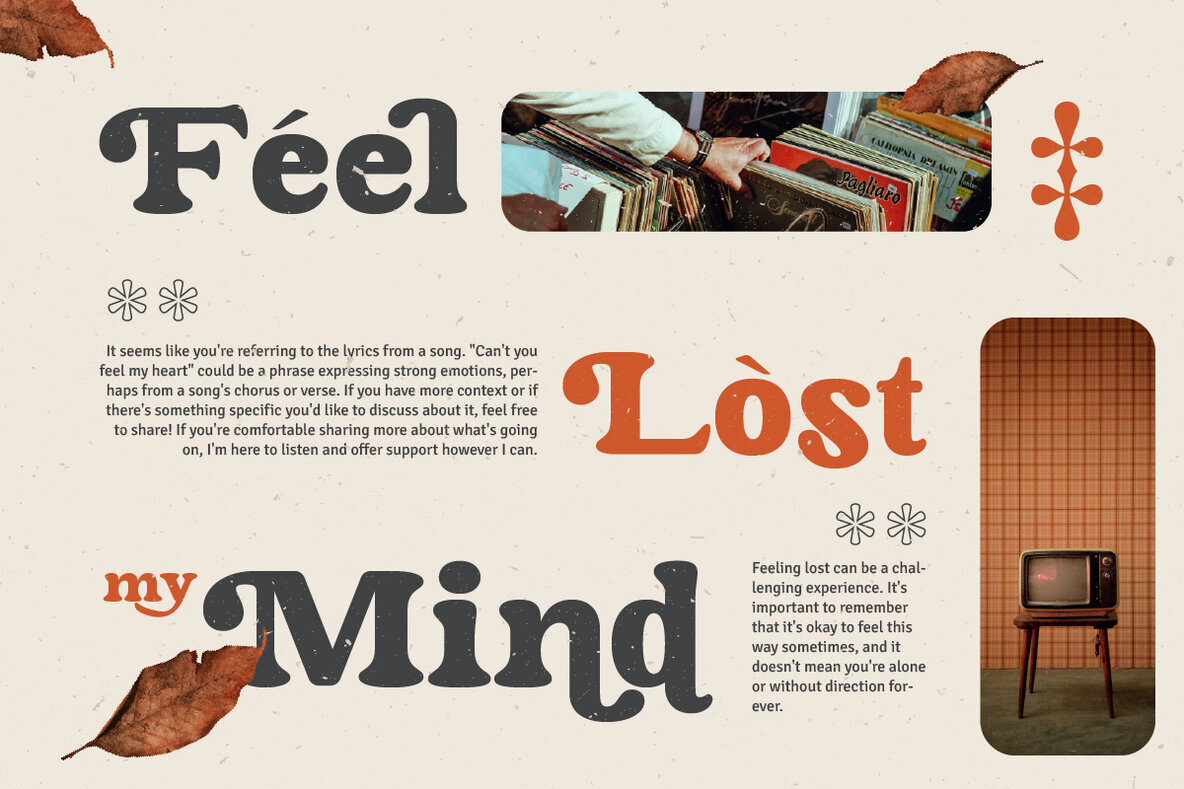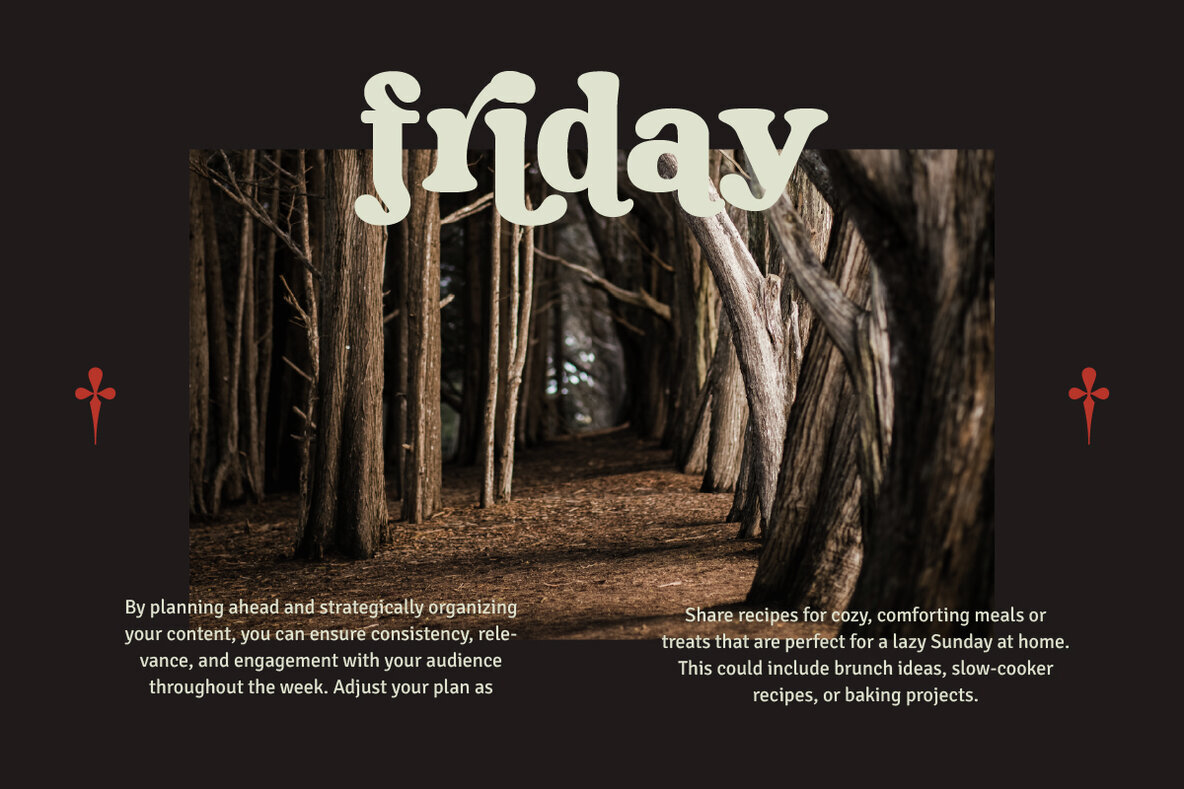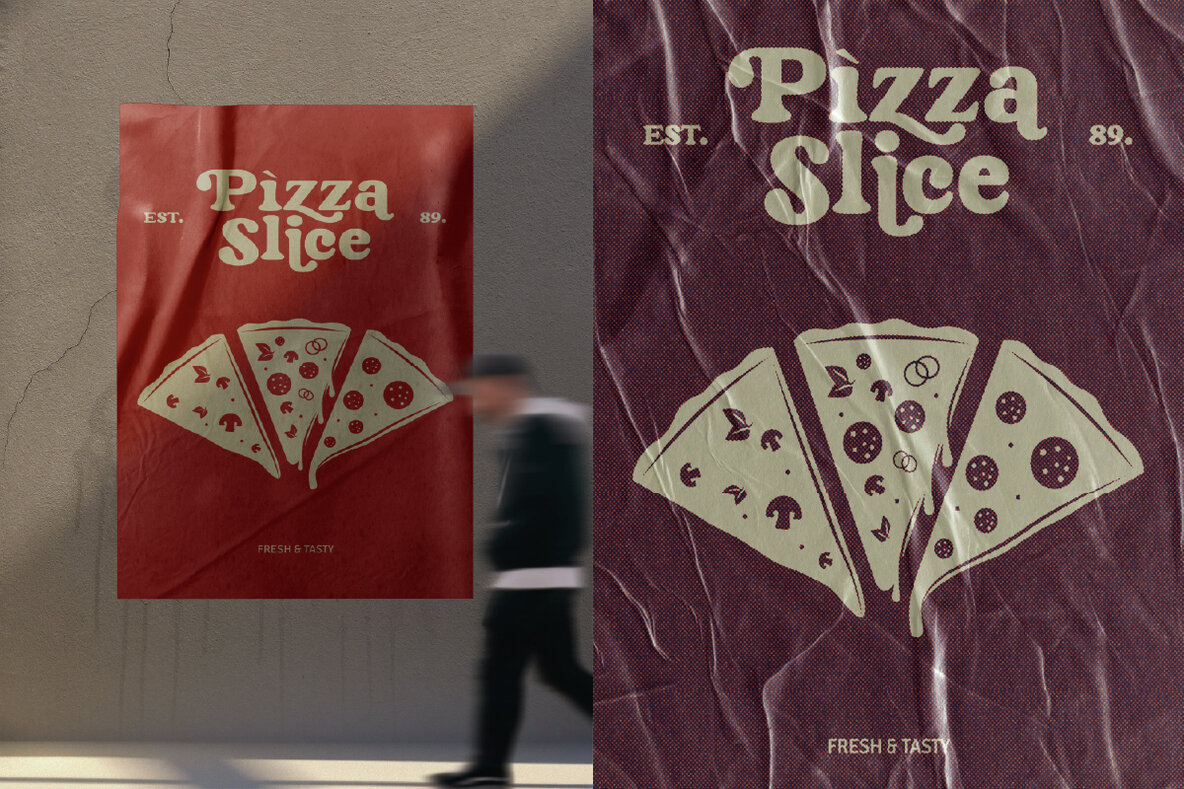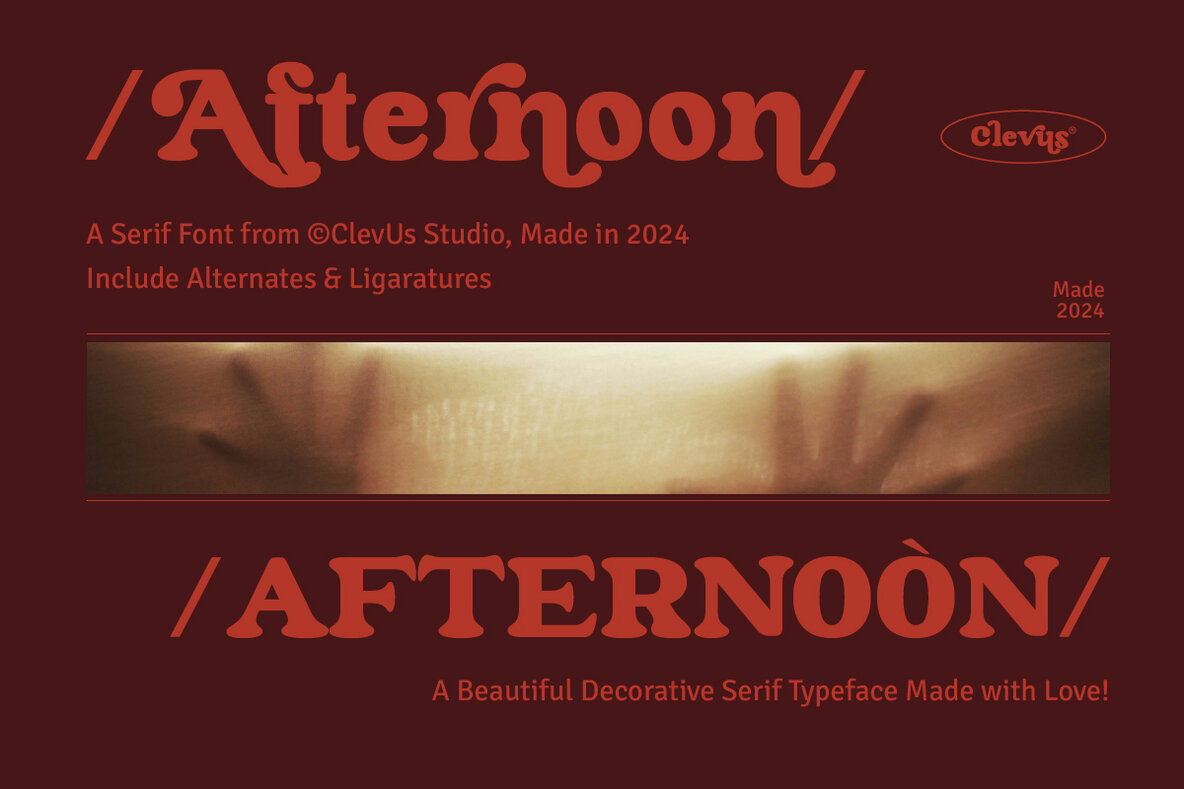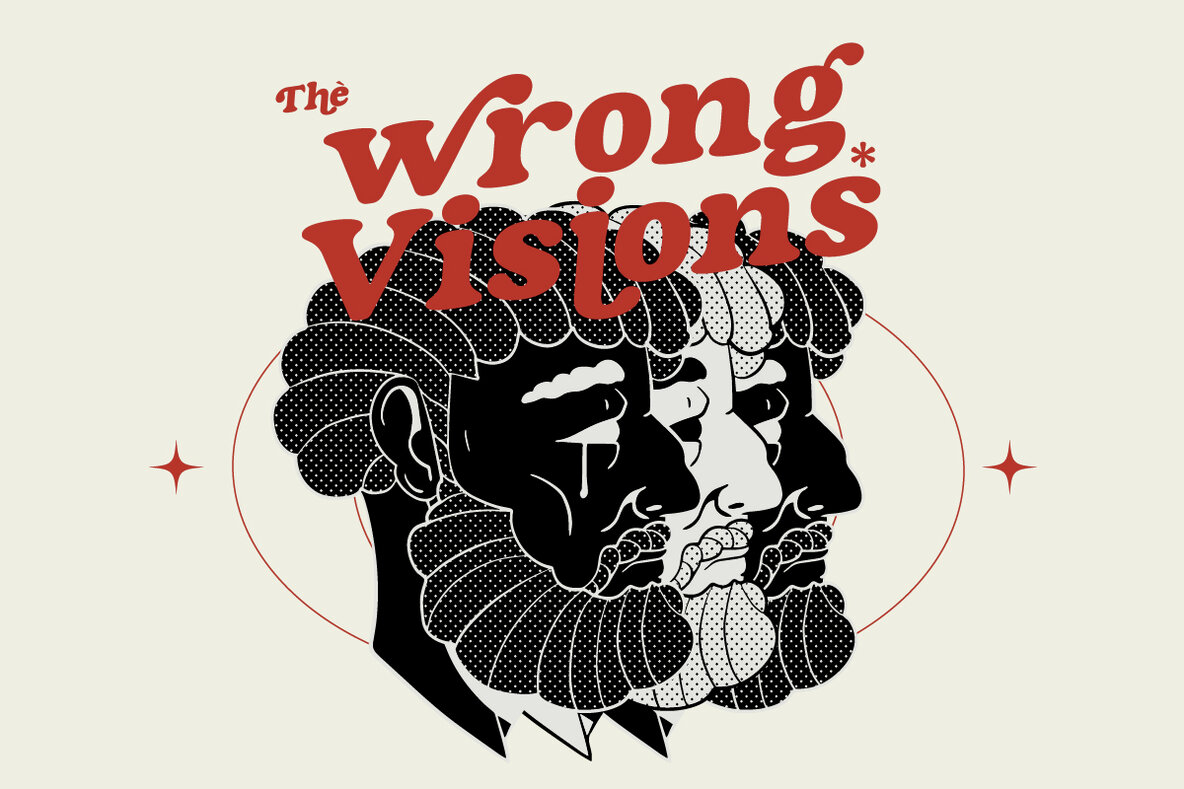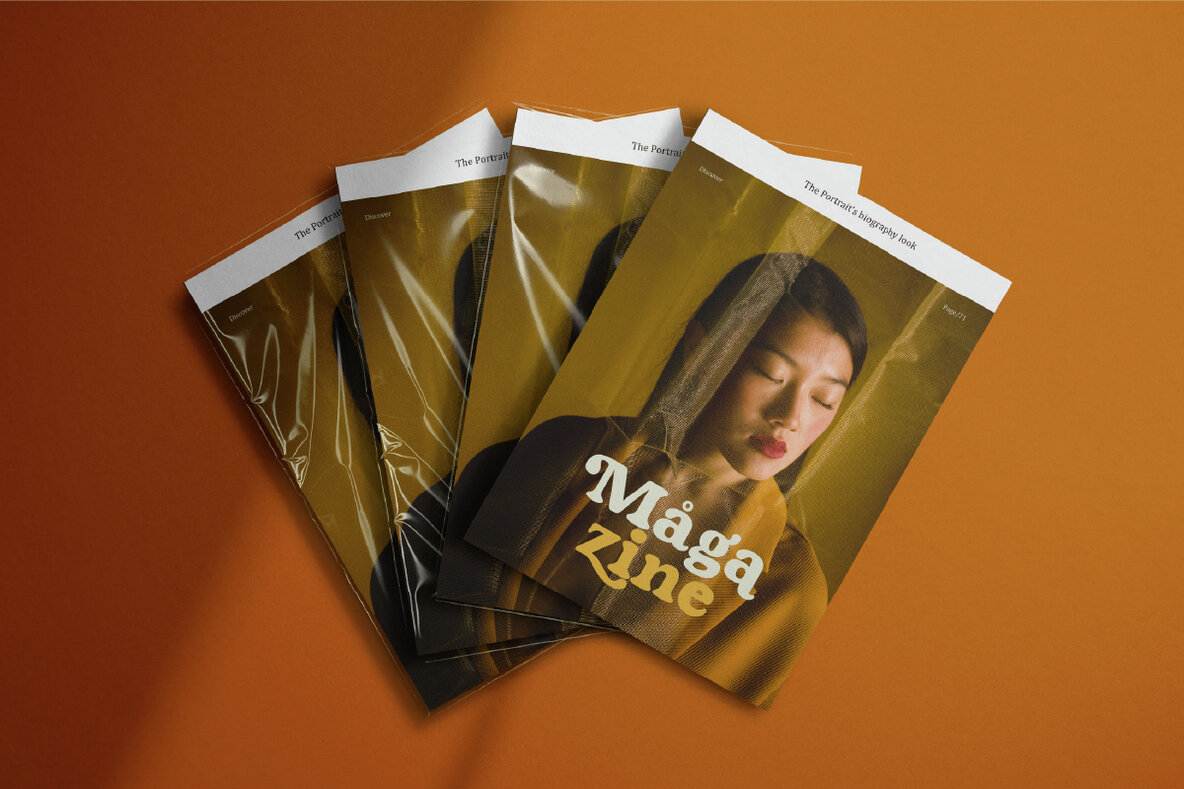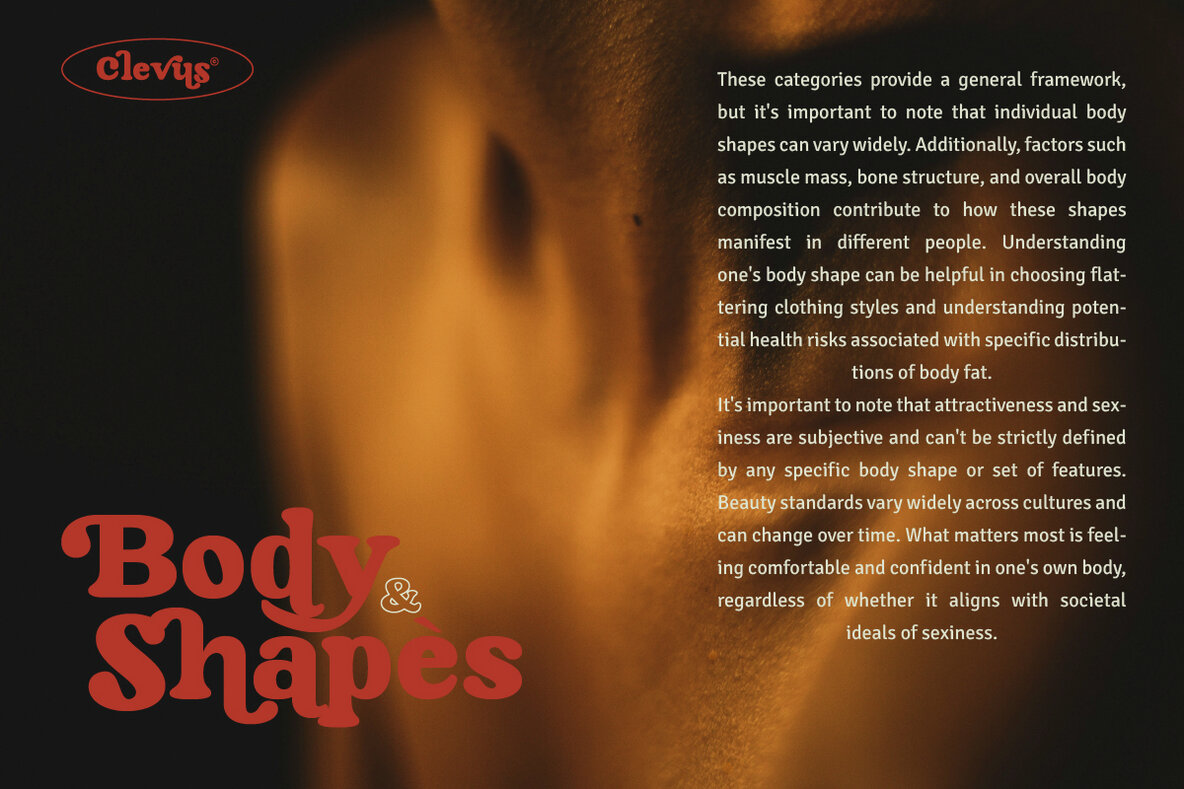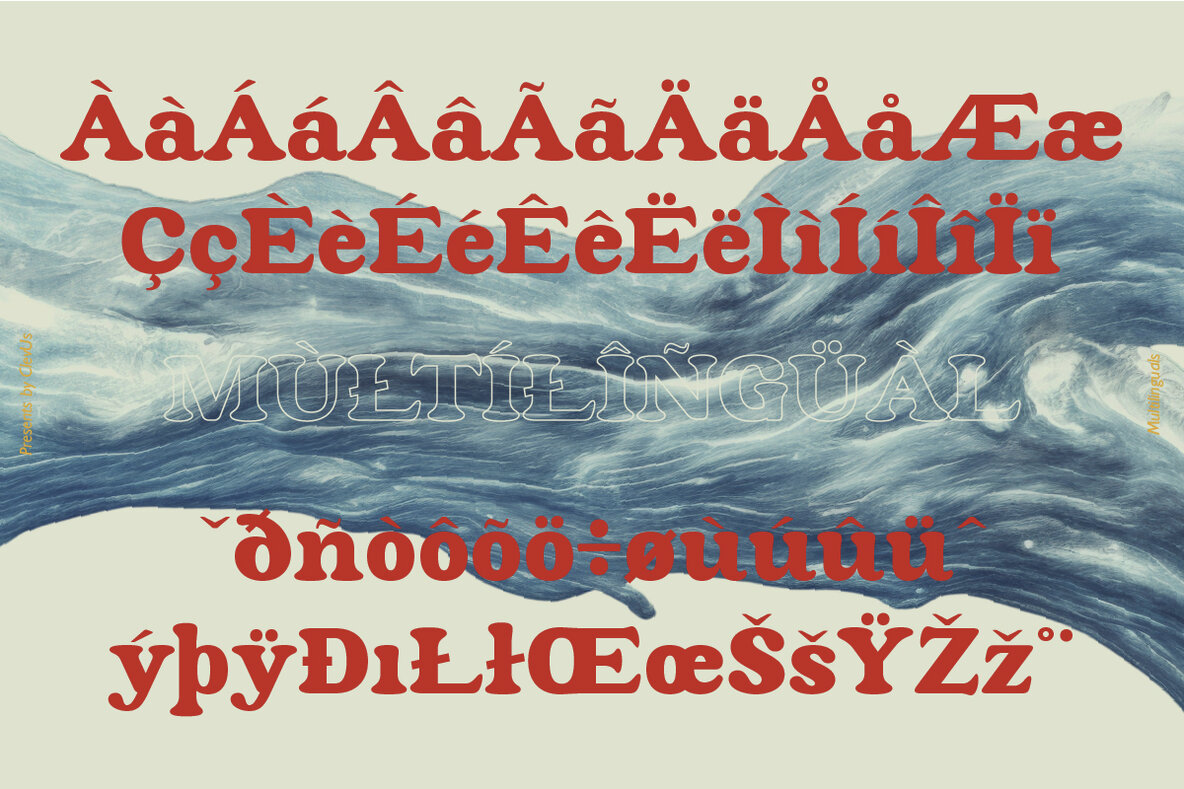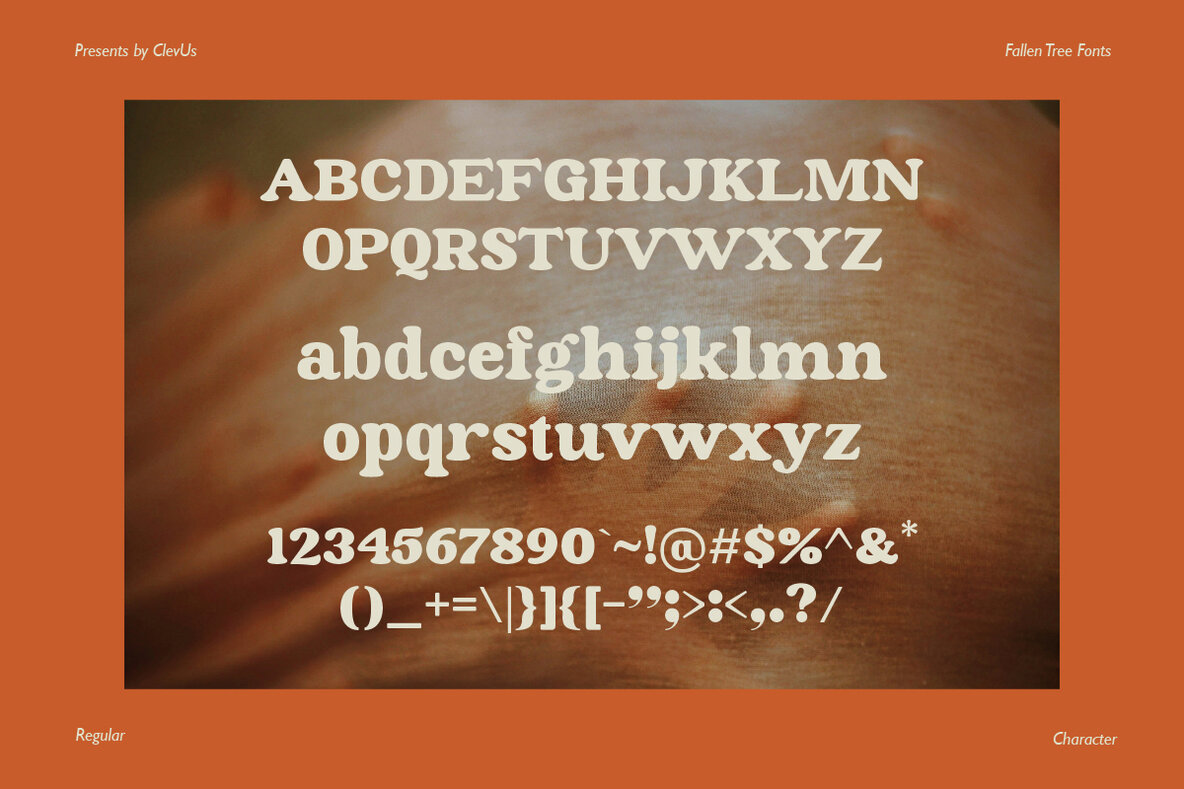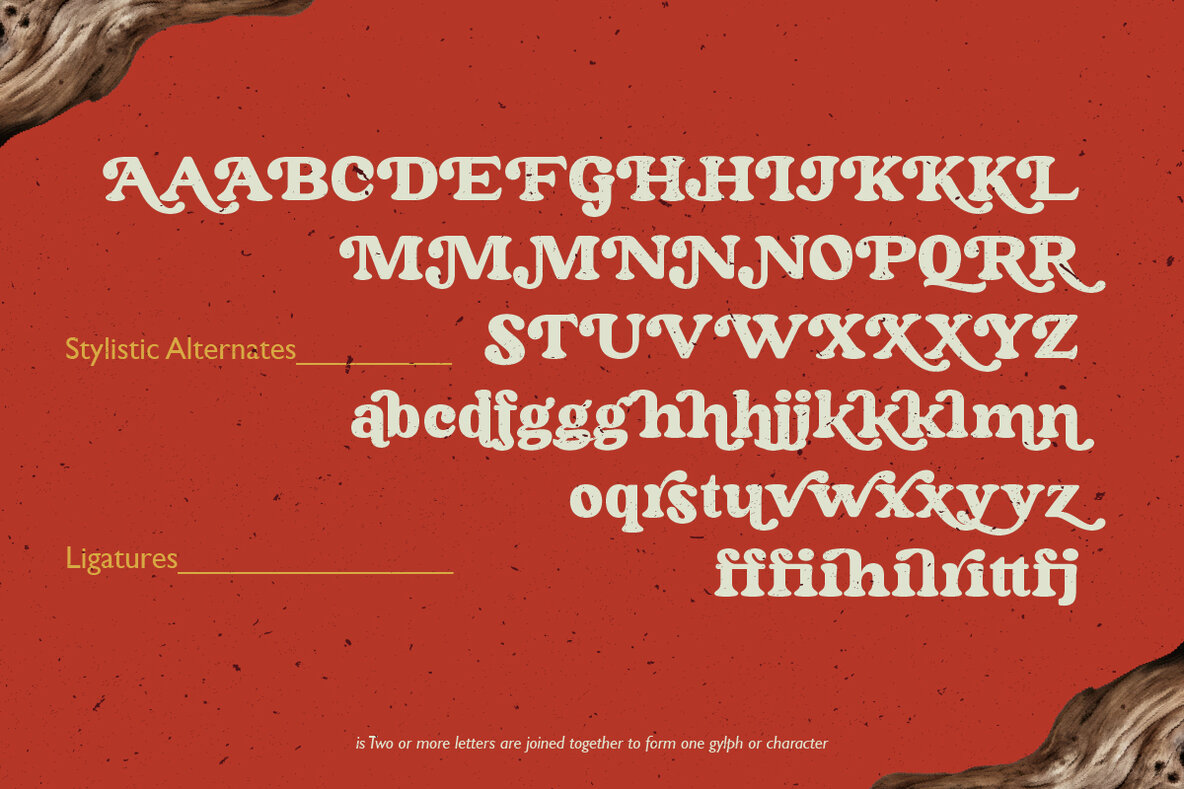
Fallen Tree Font
Fallen Tree Regular
Introducing Fallen Tree Serif Font, a stylish typeface blending modern and retro aesthetics. Perfect for creating stunning logos, quotes, blog posts, branding projects, magazine imagery, and wedding invitations, this font offers a versatile solution for any design need.
Fallen Tree comes with a range of alternatives and ligatures, providing flexibility and creativity in your designs. Its unique character and elegant touch make it an ideal choice for any project seeking a distinctive and sophisticated appearance.